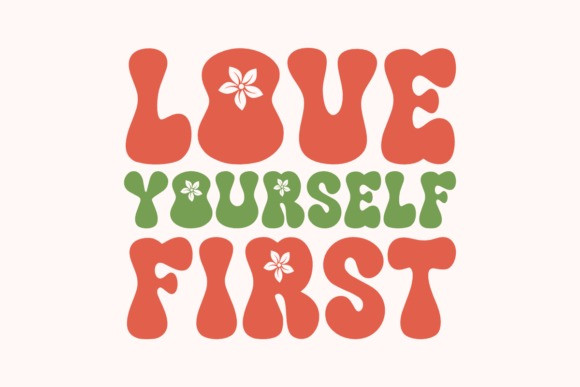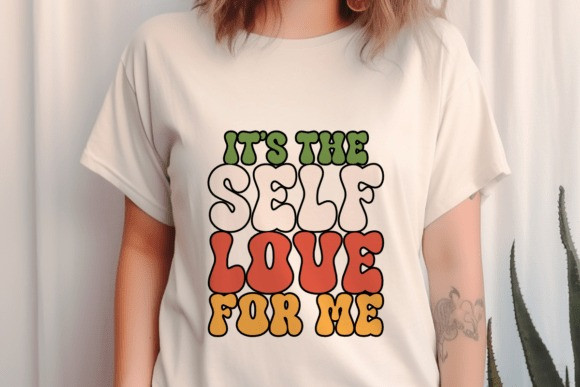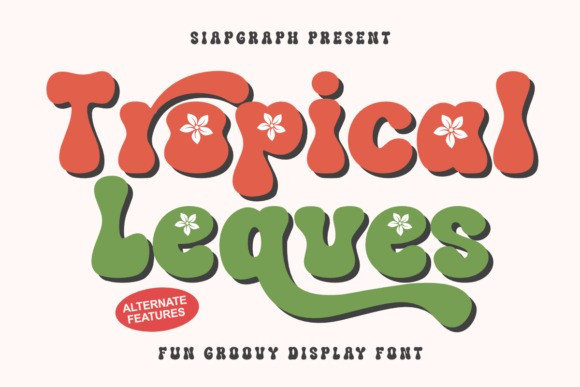
Tropical Leaves Font
Tropical Leaves Font – a stunning, retro-inspired display font overflowing with spirited alternate features. Picture vintage elegance reimagined for today’s world! Tropical Leaves lends its joyful vintage essence to vibrant t-shirts and charming homeware items, infusing your designs with a celebratory feel. Experience zest and vitality spring from the pages as the font elegantly crowns your quotes on pillows, or let the warmth of creative sparks ignite on greeting cards imbued with genuine coolness. With its vital nature, Tropical Leaves stands out as an optimum choice for sublimation, Cricut, and laser cuts, providing a charismatic twist to your projects. Unleash your creative spirit on stickers or scrapbooks, as Tropical Leaves carries your ideas into a brilliant carnival of retro sophistication.